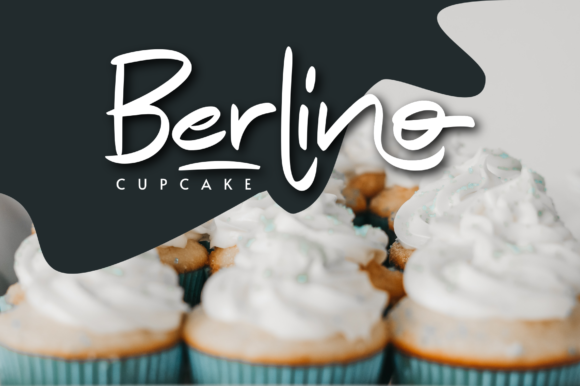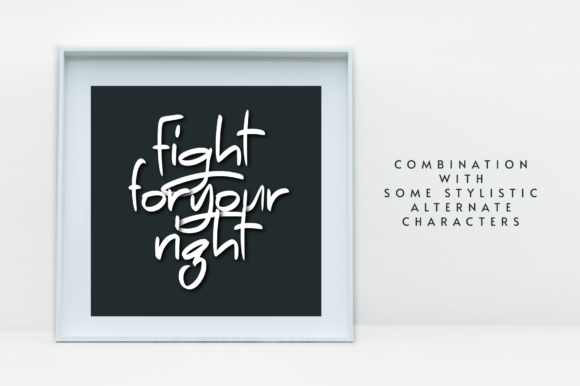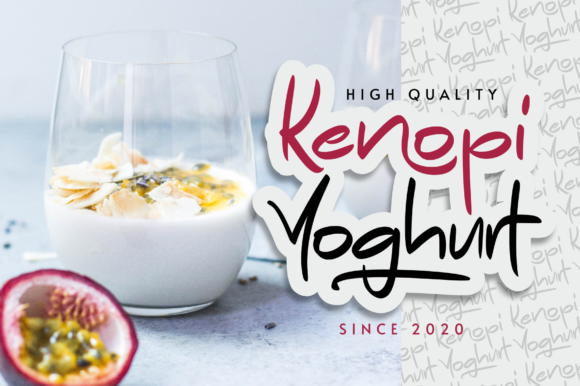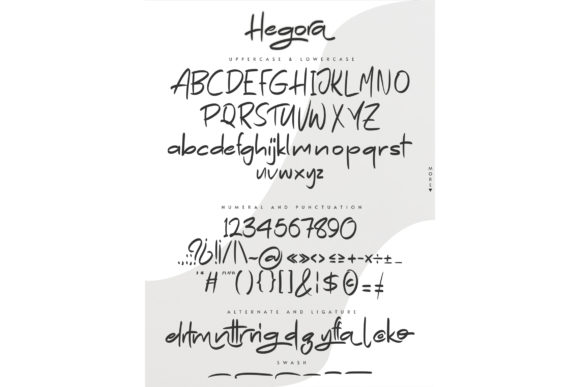
Hegora Font: Elevate Your Designs with a Touch of Trendy Sophistication
In the world of typography, fonts play a crucial role in conveying the tone and personality of a brand or design. For designers and crafters looking to add a dash of trendiness to their projects, Hegora Font is an excellent choice. This cool handwritten font boasts smooth curves and a perfect blend of modernity and elegance, making it ideal for fashion branding, editorial designs, and more.
The Characteristics of Hegora Font
Hegora Font is defined by its unique characteristics, which set it apart from other fonts. Its smooth curves and flowing lines give it a sense of fluidity and dynamism, making it perfect for designs that require a touch of sophistication. The font’s trendiness is balanced with a timeless quality, ensuring that it remains relevant and stylish for years to come.
Perfect for Fashion Branding
Fashion branding requires a font that exudes style, elegance, and sophistication. Hegora Font ticks all these boxes, making it an excellent choice for fashion brands looking to elevate their visual identity. The font’s smooth curves and flowing lines evoke a sense of luxury and high-end quality, perfect for brands that want to convey a sense of exclusivity and refinement.
Editorial Designs Made Easy
Editorial designs require a font that is both stylish and readable. Hegora Font fits the bill, providing a perfect balance of form and function. Its unique characteristics make it stand out on the page, while its clarity and legibility ensure that the text is easy to read. Whether you’re designing a magazine, blog, or newspaper, Hegora Font is an excellent choice.
Why Choose Hegora Font?
- Trendiness: Hegora Font is a cool and trendy font that will add a touch of modernity to your designs.
- Elegance: The font’s smooth curves and flowing lines evoke a sense of elegance and sophistication.
- Versatility: Hegora Font is perfect for a range of design projects, from fashion branding to editorial designs.
- Readability: The font is clear and legible, making it easy to read and understand.
How to Use Hegora Font in Your Designs
- Pair it with other fonts: Hegora Font pairs well with other fonts, such as sans-serif fonts or serif fonts.
- Experiment with sizes: Try using Hegora Font in different sizes to create visual interest and hierarchy.
- Play with colors: Hegora Font looks great in a range of colors, from bold and bright to soft and pastel.